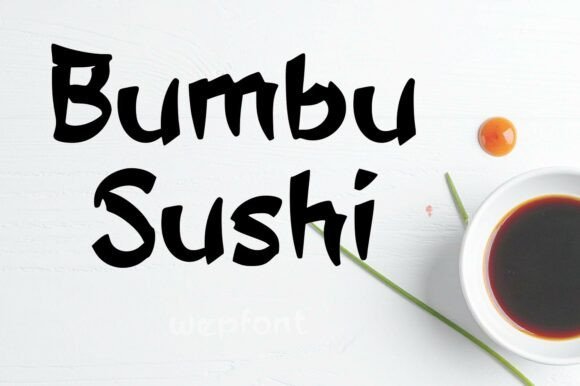
Introduction to Bumbu Sushi Font
“Bumbu Sushi” is not just a plain display font.
It is a bold and artistic statement, masterfully encapsulating the intricate elegance of Japanese culinary art with a modern, handcrafted touch This font borrows its unique charm from the free-flowing finesse of sumi-e ink painting and expressive calligraphy, giving it an unparalleled and genuine allure.